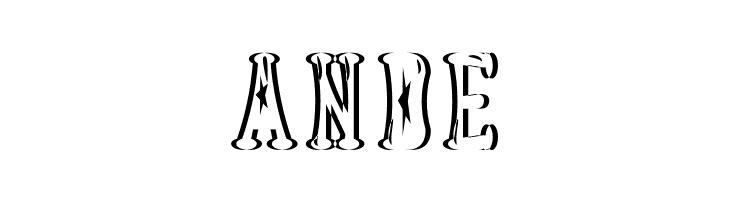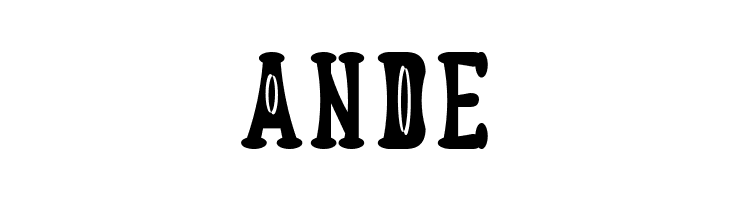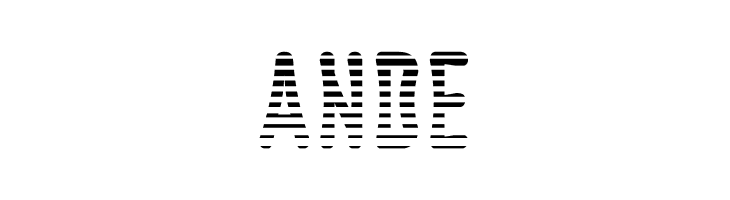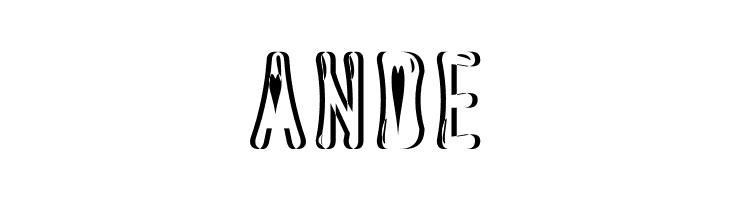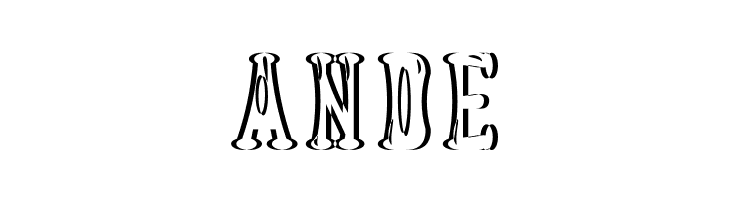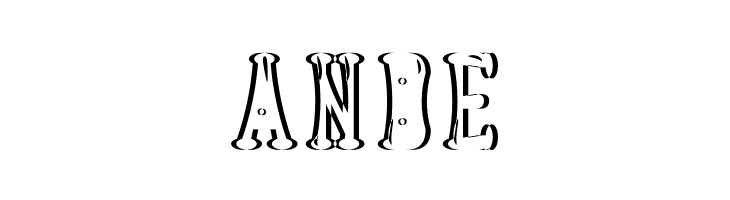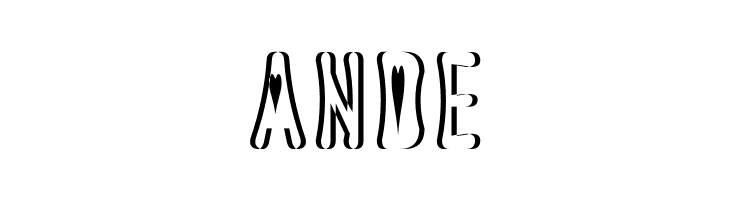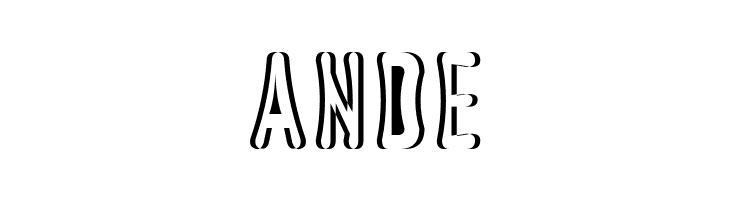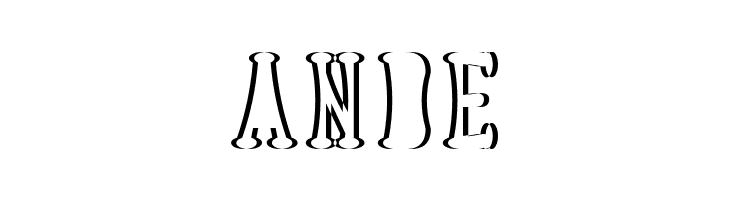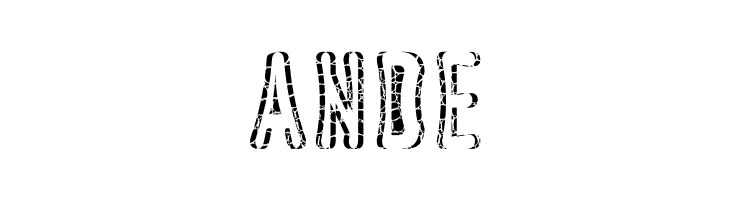
• Astakhov Dished L
A bold, striped font with a modern, industrial look.
• Astakhov Dished L Serif
A bold, striped serif font with a modern, industrial aesthetic.
• Astakhov Dished Serif
A bold, playful serif font with thick, rounded serifs and strong character presence.
• Astakhov Dished Serif E-F
A bold, playful serif font with exaggerated serifs and high contrast strokes.
• Astakhov Dished Serif E-F-2
A bold, decorative serif font with a playful, vintage-inspired style.
• Astakhov Dished Serif F
A bold, decorative font with thick strokes and unique dished serifs.
• Astakhov Dished Sh Gl E
A bold, decorative font with a three-dimensional shadow effect.
• Astakhov Dished Sh Gl E Serif
A bold, decorative serif font with a vintage, shadowed design.
• Astakhov Dished Sh Gl EF
A playful, three-dimensional decorative font with bold, shadowed characters.
• Astakhov Dished Sh Gl EF Serif
A bold, decorative font with a playful, three-dimensional style.
• Astakhov Dished Sh Gl EF2
A bold, decorative font with a three-dimensional shadow effect.
• Astakhov Dished Sh Gl EF2 Serif
A bold, decorative font with a three-dimensional effect and vintage flair.
• Astakhov Dished Sh Gl F
A bold, decorative font with a 3D effect and artistic flair.
• Astakhov Dished Sh Gl F Serif
A bold, decorative font with vintage flair and intricate detailing.
• Astakhov Dished Sh Gl FS
A bold, decorative font with star motifs and a three-dimensional shadow effect.
• Astakhov Dished Sh Gl FS Serif
A bold, decorative serif font with star motifs and a vintage flair.
• Astakhov Dished Sh Gl H
A decorative font with bold outlines and playful heart accents.
• Astakhov Dished Sh Gl H Serif
A bold, decorative serif font with shadow effects and star cutouts.
• Astakhov Dished Shadow Glamour
A bold, decorative font with a shadow effect, blending modern and vintage styles.